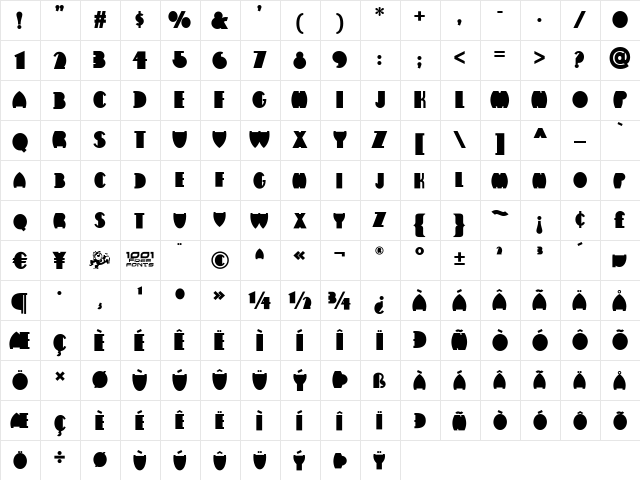
Flatiron NF Regular
Design Context for Flatiron NF Typeface
Flatiron NF is a composed and adaptable typeface that performs quietly and consistently across a wide range of design contexts.